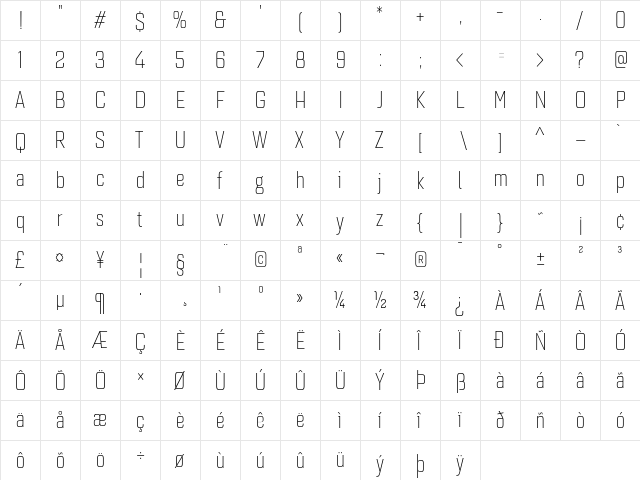
Quarca Cond Light
Design Context for Quarca Typeface
Quarca is a composed and adaptable typeface that performs quietly and consistently across a wide range of design contexts. Its slender proportions lend an understated elegance to any composition. The condensed width makes it efficient for tight spaces without sacrificing legibility.